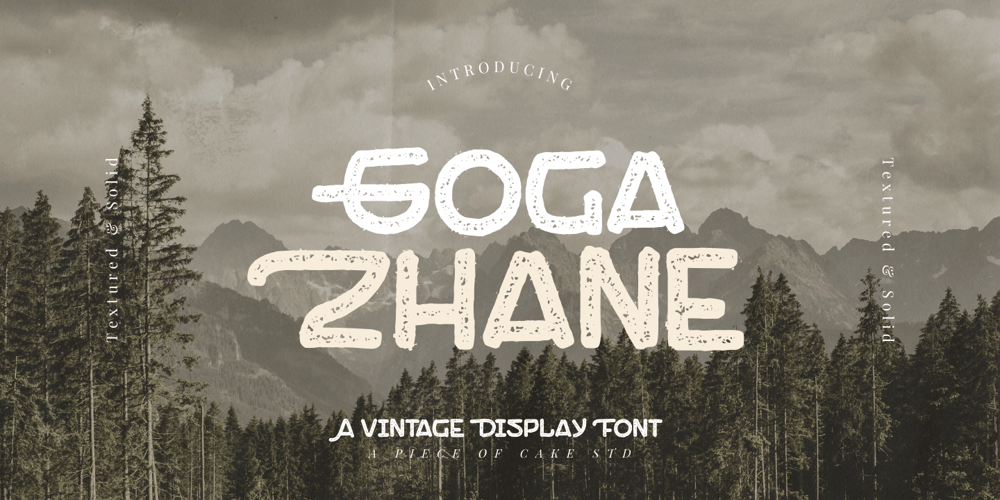
Goga Zhane Font Family was designed by Muh. Aswar, Andi Syahdang and published by Piece of Cake Typework. Goga Zhane contains 2 styles and family package options. Hello World,Introducing, Goga Zhane is a textured display font suitable for your design project needs, such as; social media posts, quotes, overlays on images, taglines, logos, posters, print needs, website banners, and more.Features A set of uppercase and lowercase glyphs Number, symbol, and punctuation Multilingual Support Solid version Thank you a million times for downloading and using this font for your projects. Enjoy this font and happy creating!